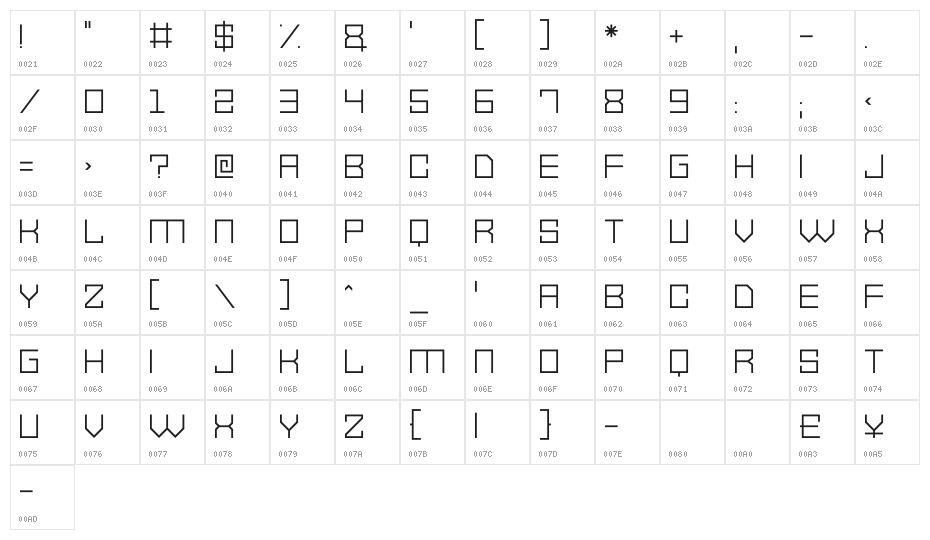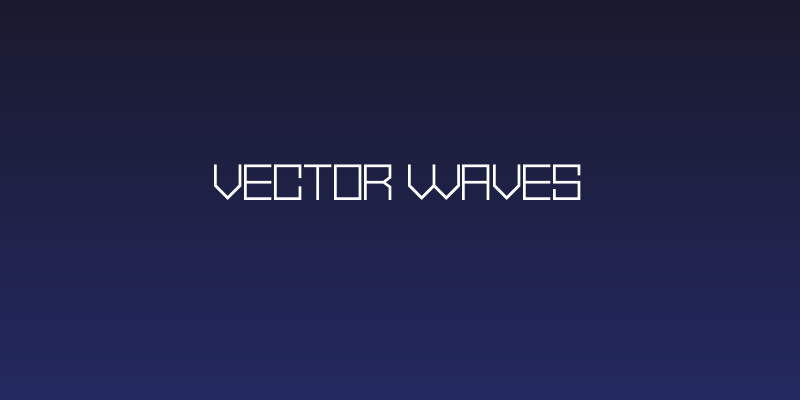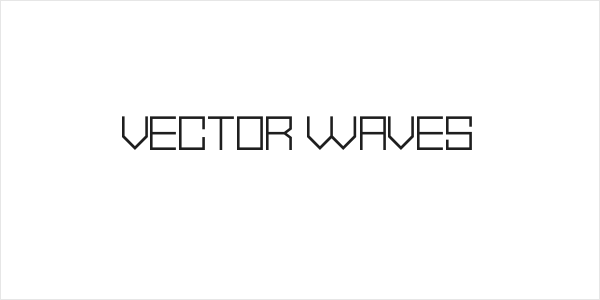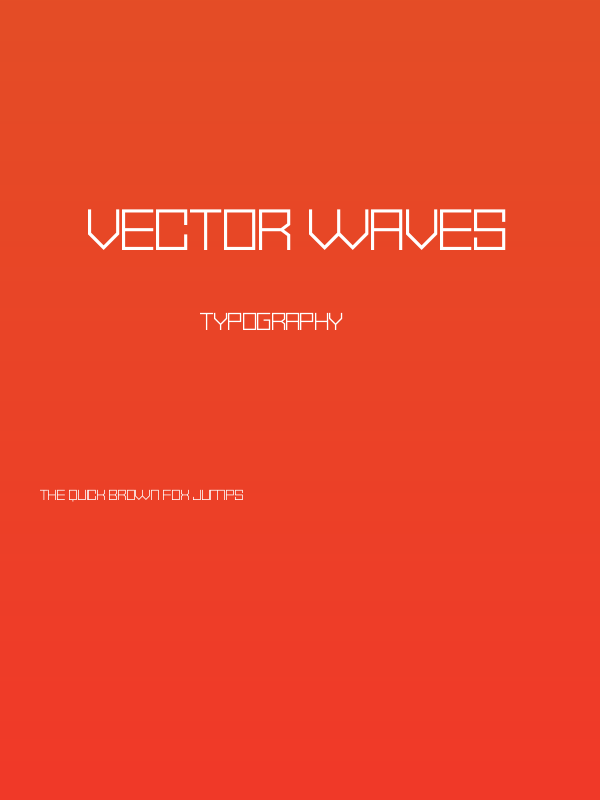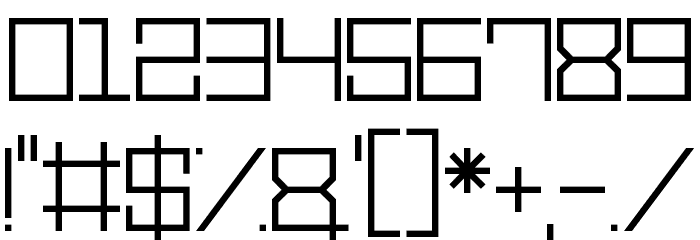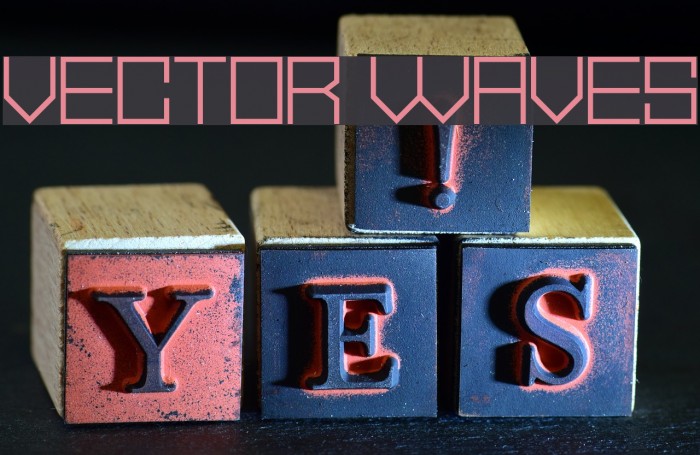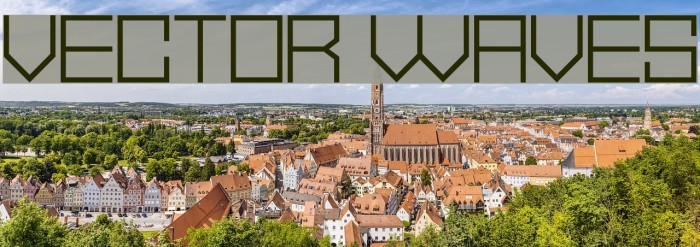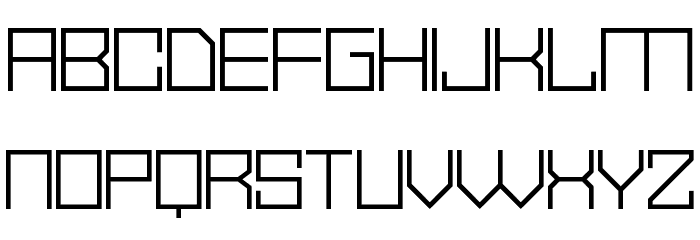
Vector Waves Font
Vector Waves Description
This font features a geometric and angular design, characterized by its sharp edges and straight lines. Each character is constructed with a consistent stroke width, giving it a uniform and structured appearance. The uppercase and lowercase letters maintain a similar height, enhancing the font's modern and futuristic aesthetic. The numerals and special characters follow the same design principles, ensuring cohesion across all elements. This font's unique style makes it stand out, offering a bold and distinctive look suitable for various creative applications.
VECTOR-WAVES UPPERCASE
VECTOR-WAVES LOWERCASE
VECTOR-WAVES OTHER CHARS
| Use Case | Headlines, Logos, Digital media |
| Proposed Projects | Ideal for technology-themed projects, branding, logos, and digital media that require a modern and futuristic touch. |